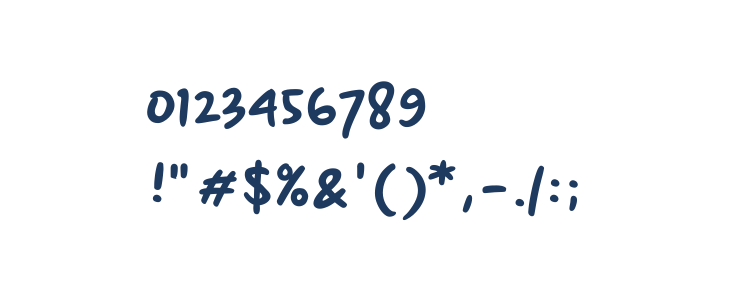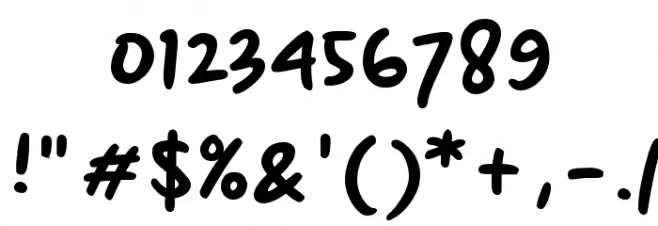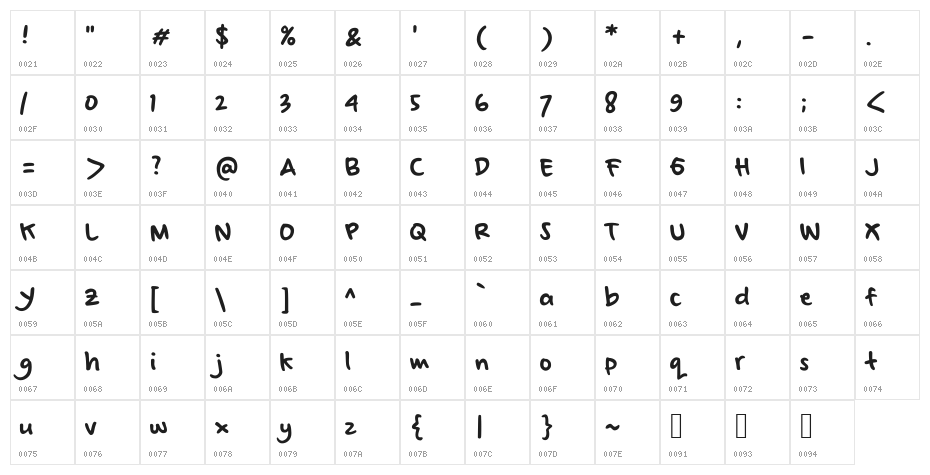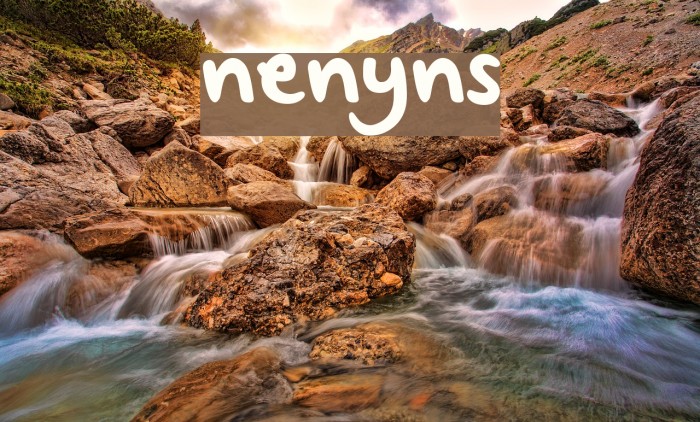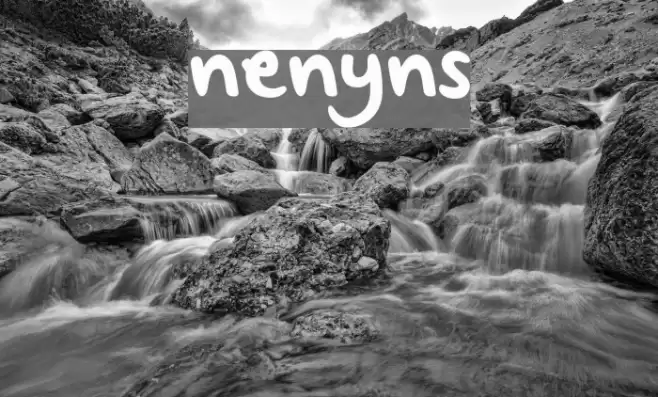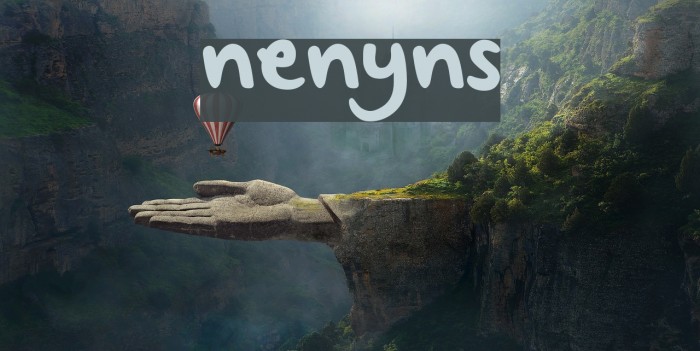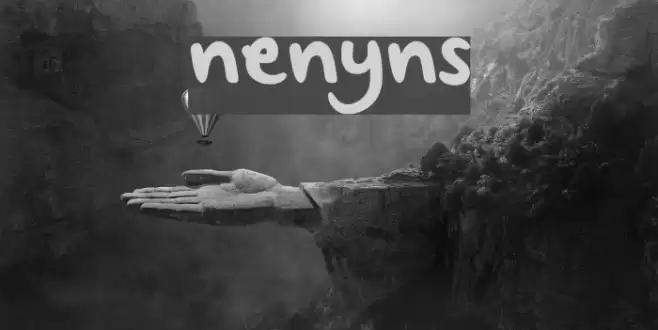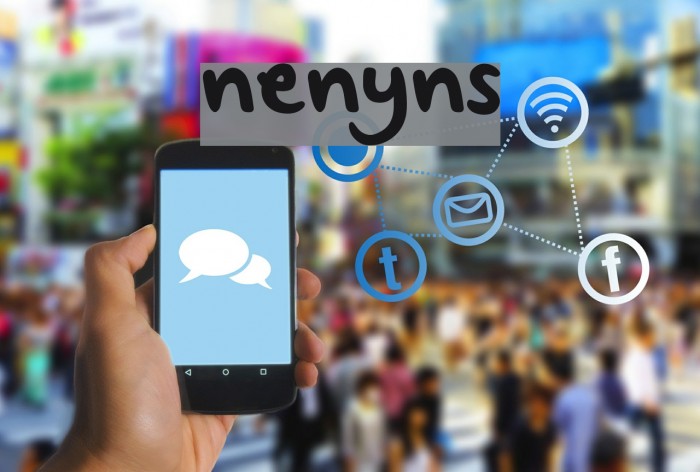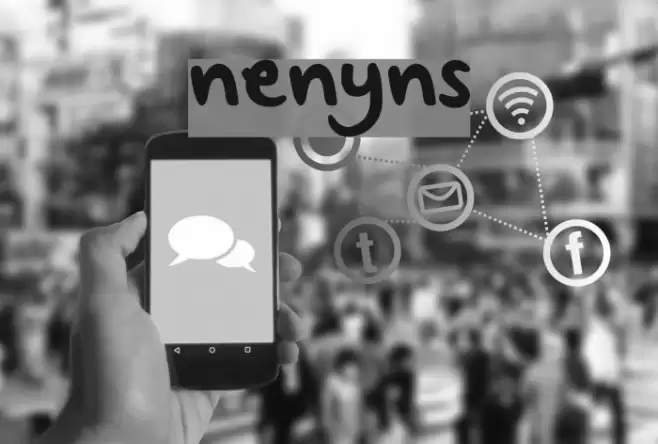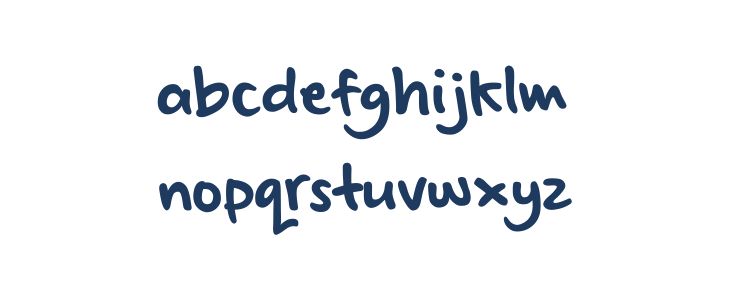
nenyns Font
nenyns Description
This font features a playful and informal handwritten style, characterized by its bold and rounded letterforms. The strokes are consistent in thickness, giving it a uniform appearance. The letters have a slight slant, adding to the casual and friendly feel. The uppercase and lowercase letters are well-proportioned, and the numerals are clear and easy to read. Special characters are included, maintaining the same playful aesthetic. This font is suitable for projects that require a personal touch or a fun, approachable vibe.
| Proposed Projects | Ideal for children's books, greeting cards, casual branding, and social media graphics. |